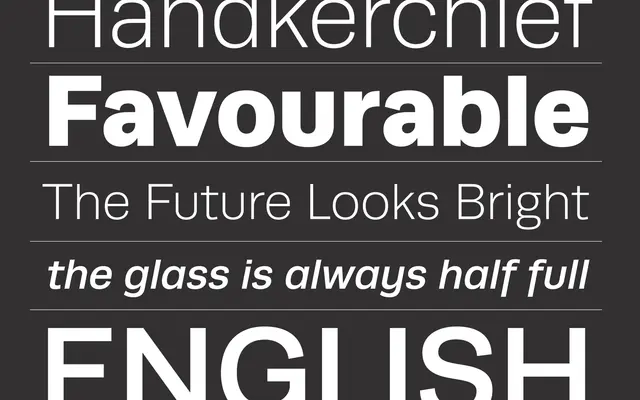
Runda
PS Type Lab · 2010
A clean humanist sans originally released in 2010 and substantially revised in 2024, now spanning eight weights with matching italics and variable font support.
Originally published in 2010, Runda was overhauled in 2024 with refined spacing, improved letterforms, an extended character set and three additional weights. The family now runs from Hairline to Black with matching italics across all eight weights, and is available as a variable font alongside static cuts. Open forms and simple construction make it serviceable across both text and display settings.
Runda's open forms and simple, refined shapes place it firmly in the humanist sans tradition, prioritising legibility and warmth across a broad range of sizes and weights.